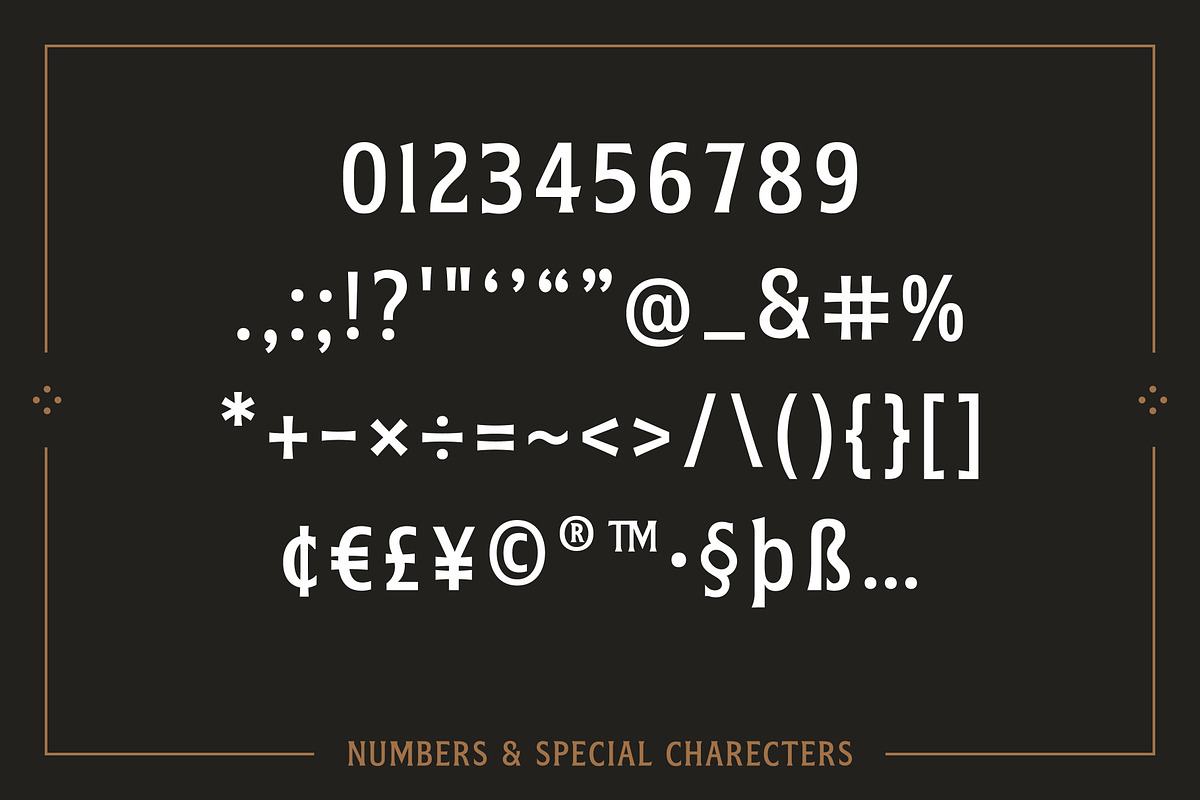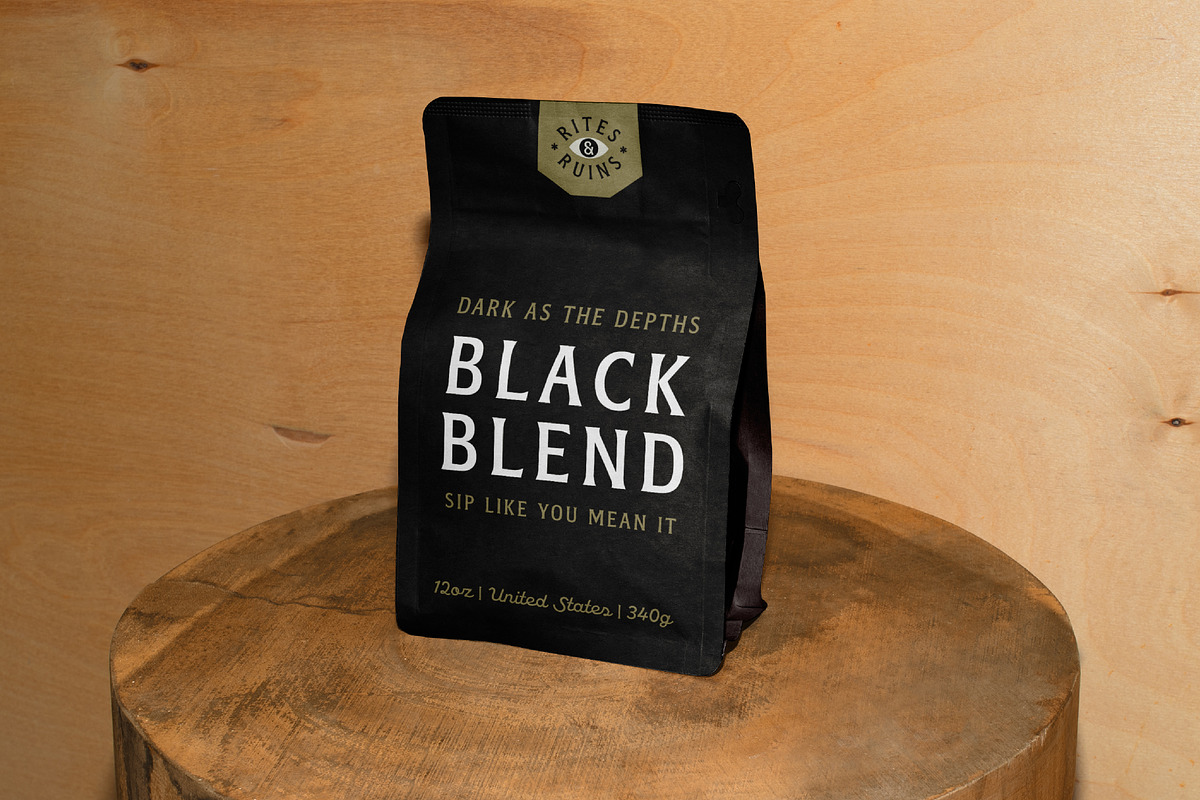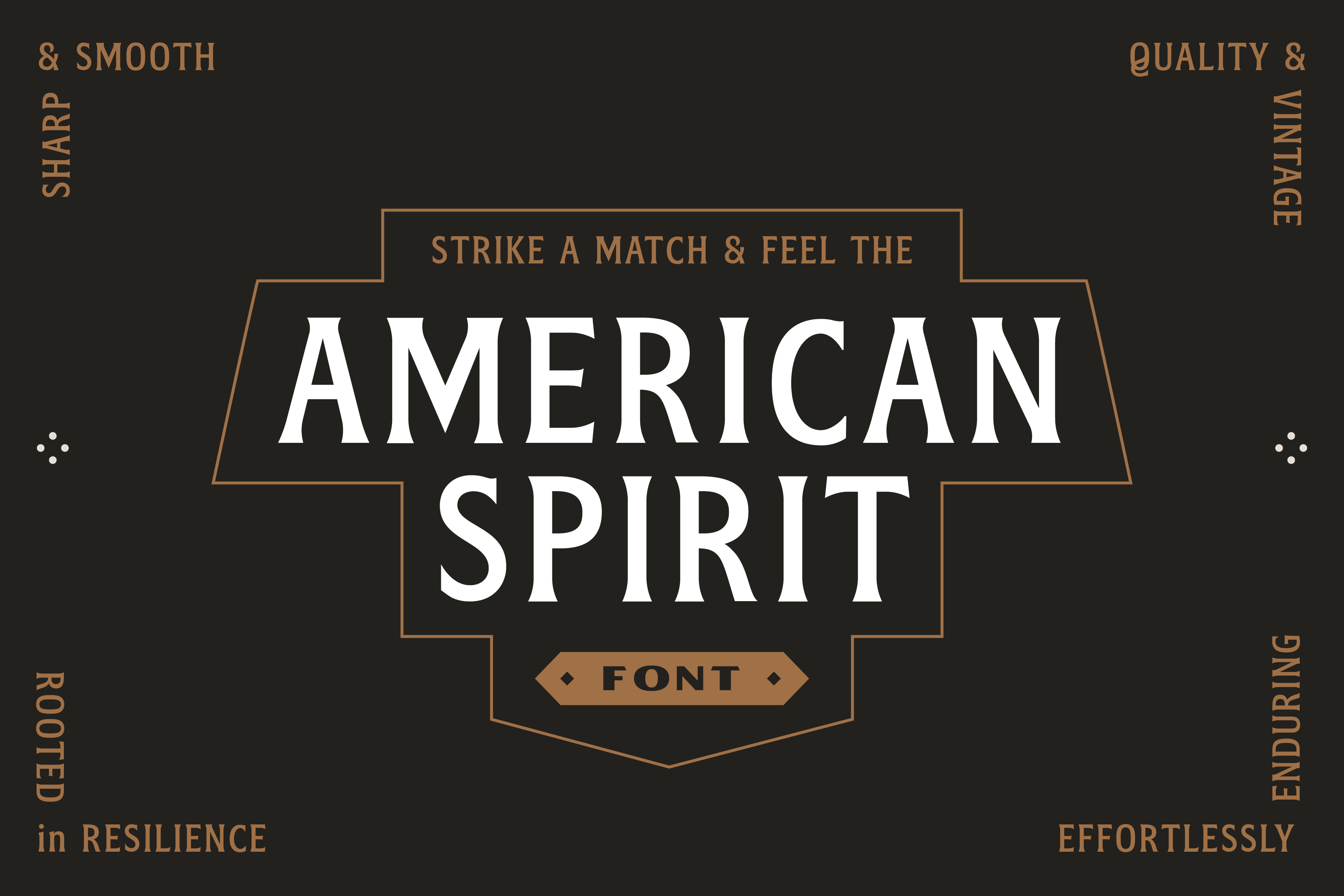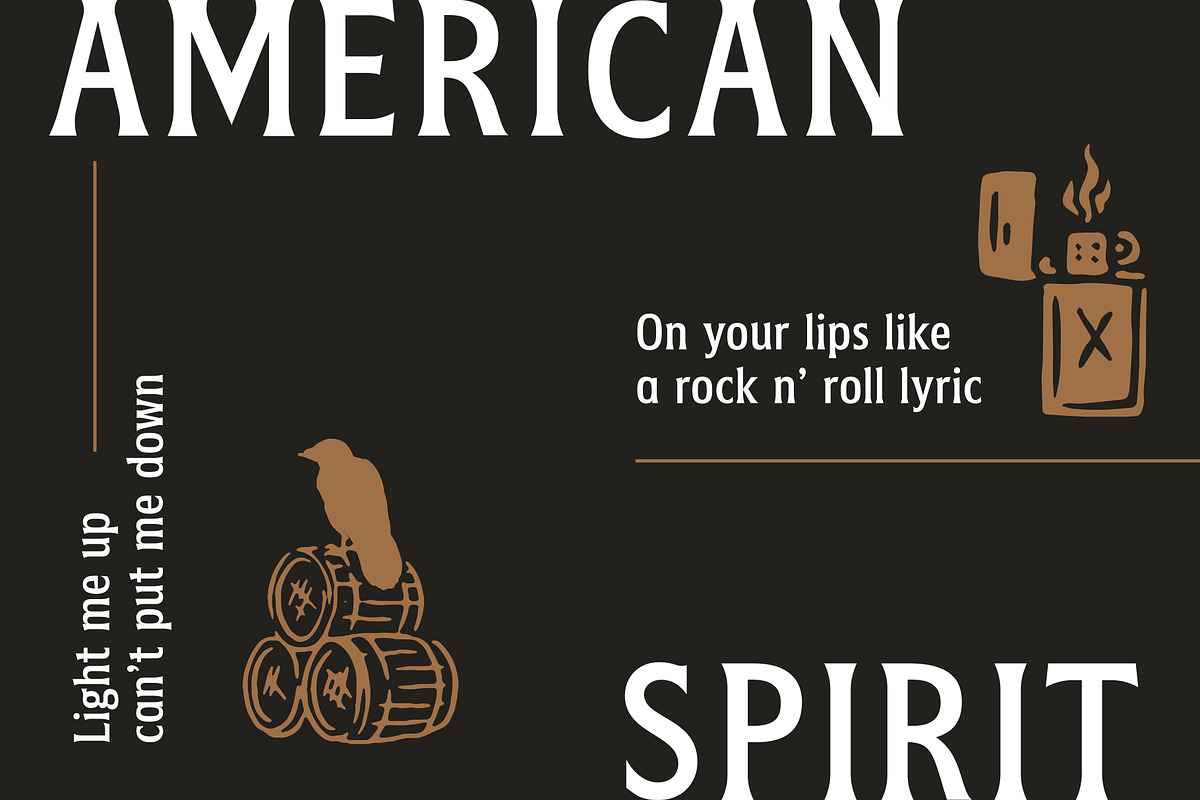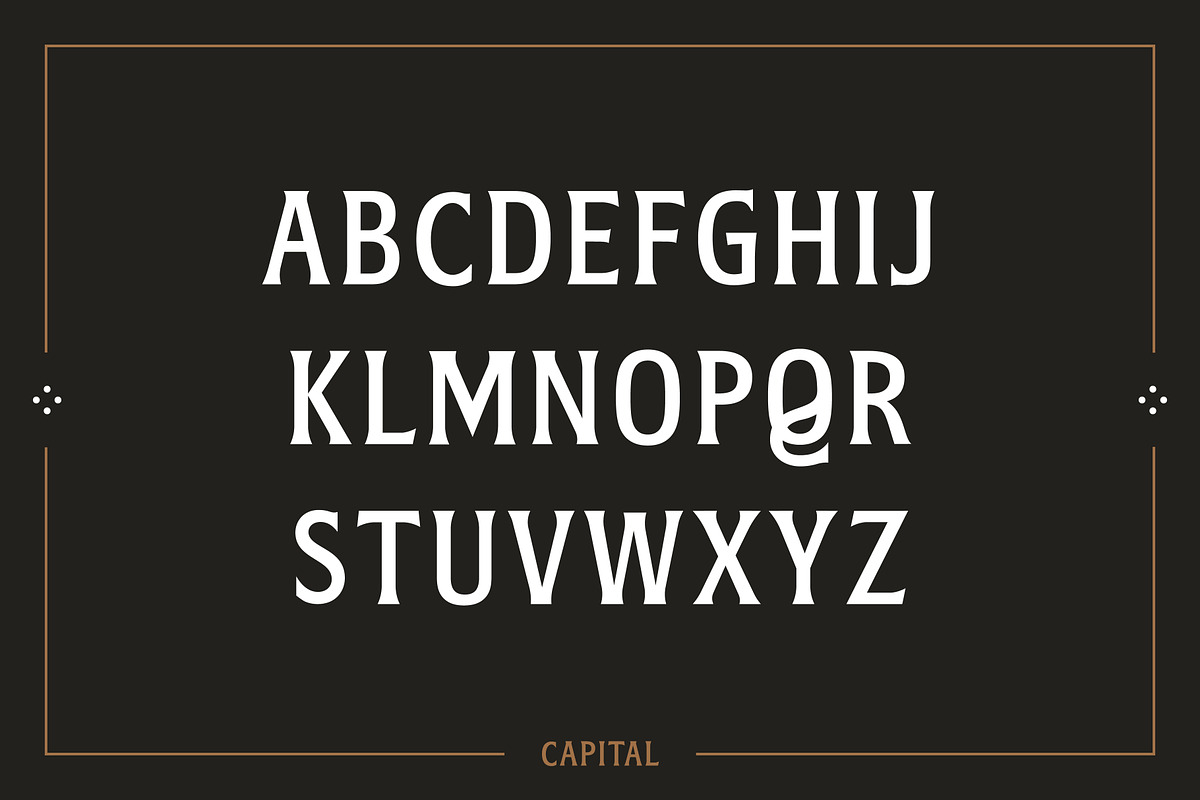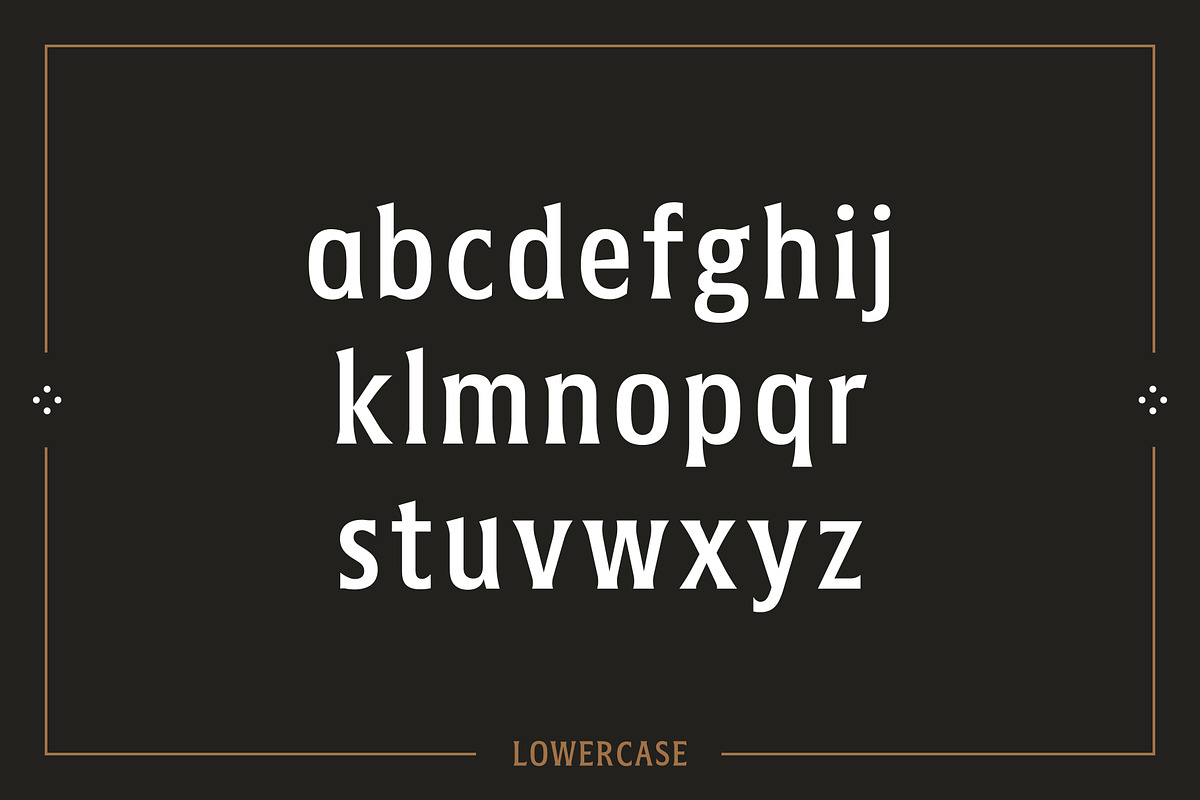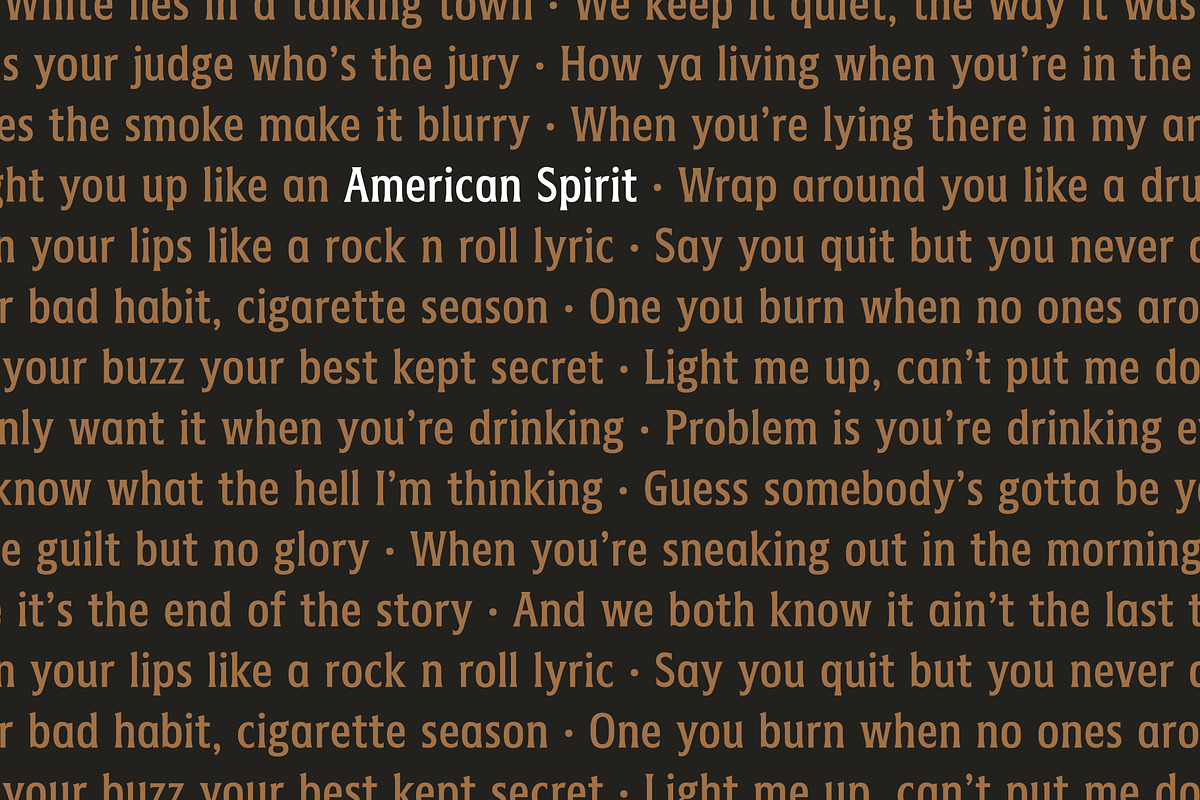
American Spirit – Vintage Serif Font
Strike a match and feel the American Spirit. This bold, heritage-inspired serif captures the essence of classic craftsmanship, where grit meets refinement and tradition meets timeless style.
Designed with strong, confident letterforms and sharp, clean edges, American Spirit delivers a look that is both rugged and sophisticated. Its balanced proportions and subtle vintage detailing make it highly versatile, perfect for projects that demand authenticity and presence.
Perfect for
- Branding and logos
- Whiskey, tobacco, and heritage packaging
- Editorial headlines and posters
- Western, Americana, and vintage-themed designs
- Apparel graphics and merchandise
- Full uppercase and lowercase character set
- Numerals and punctuation
- Carefully crafted spacing for smooth readability
- Strong display presence with refined serif details
Whether you're building a bold brand or adding a touch of timeless Americana to your work, American Spirit stands sharp, smooth, and rooted in resilience.